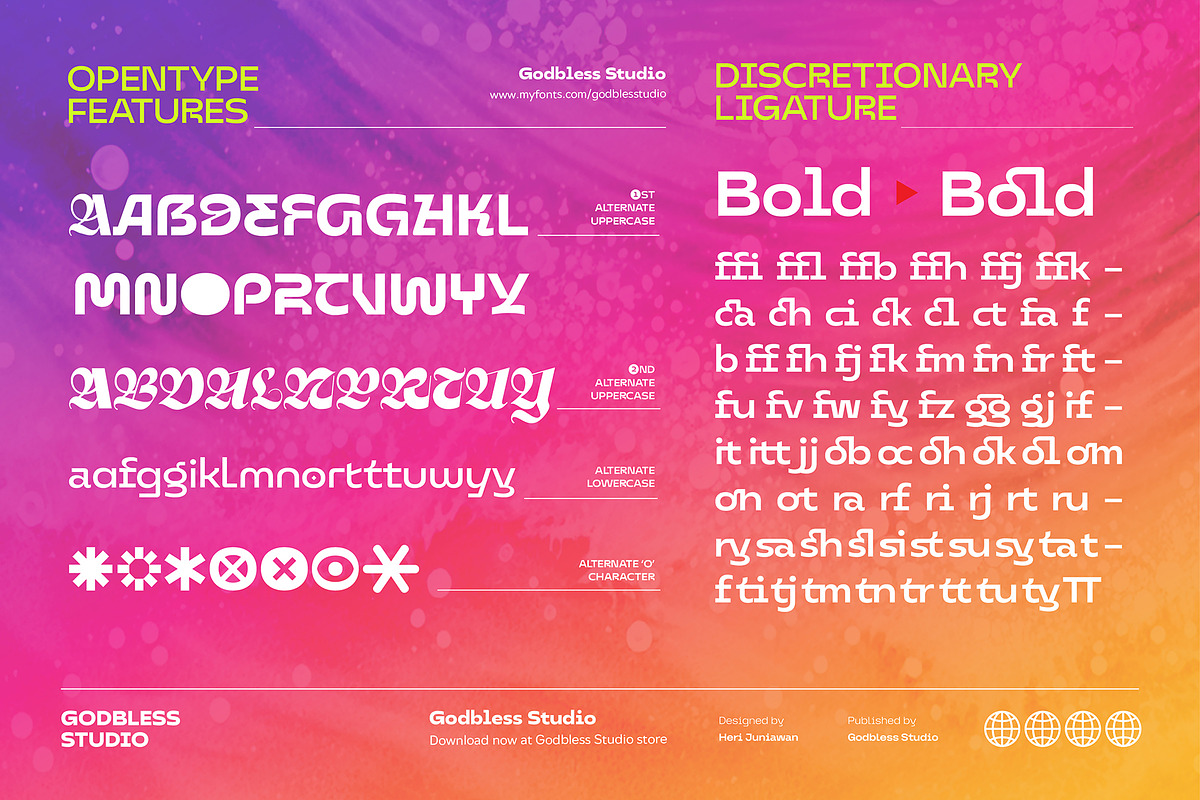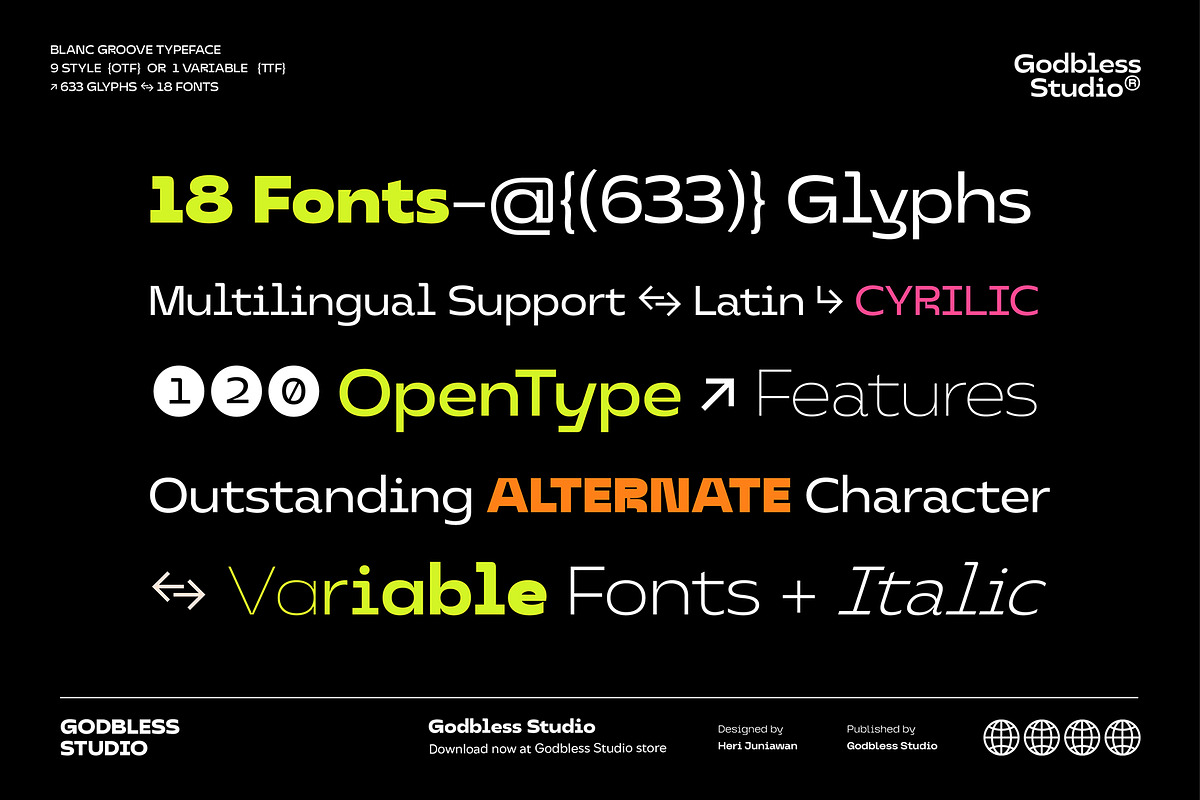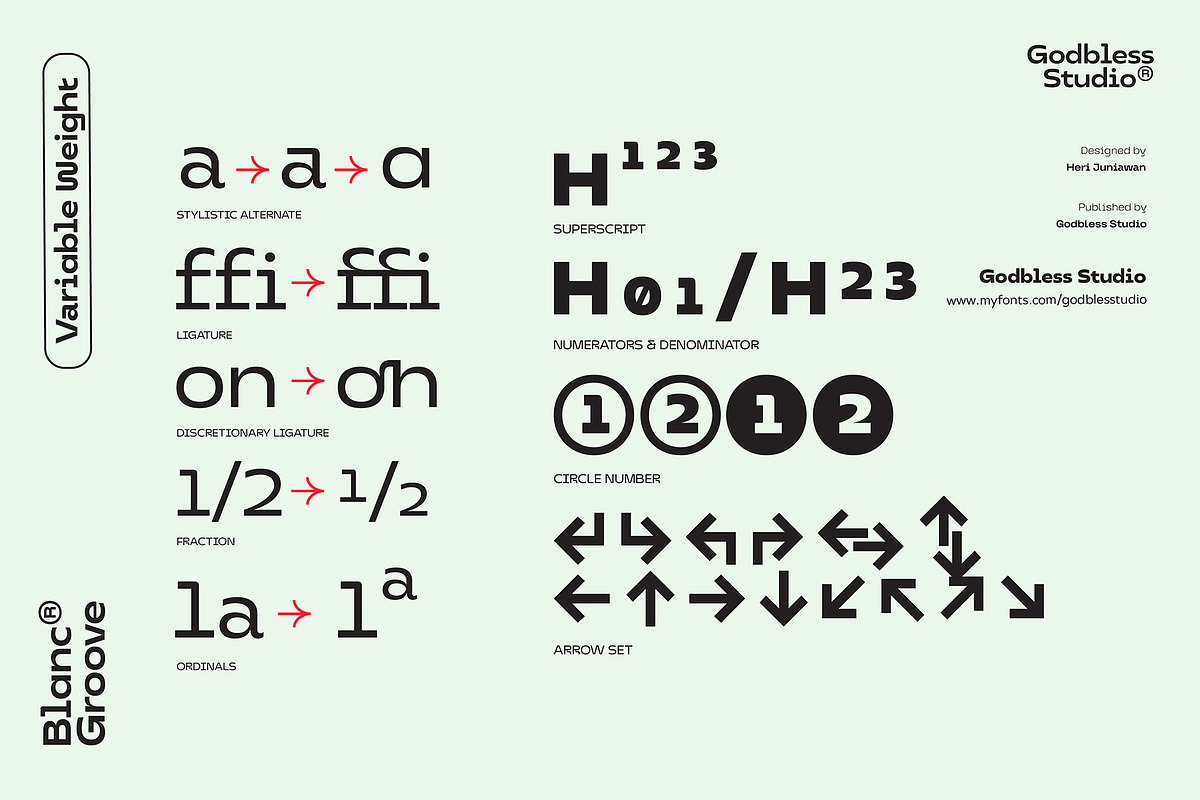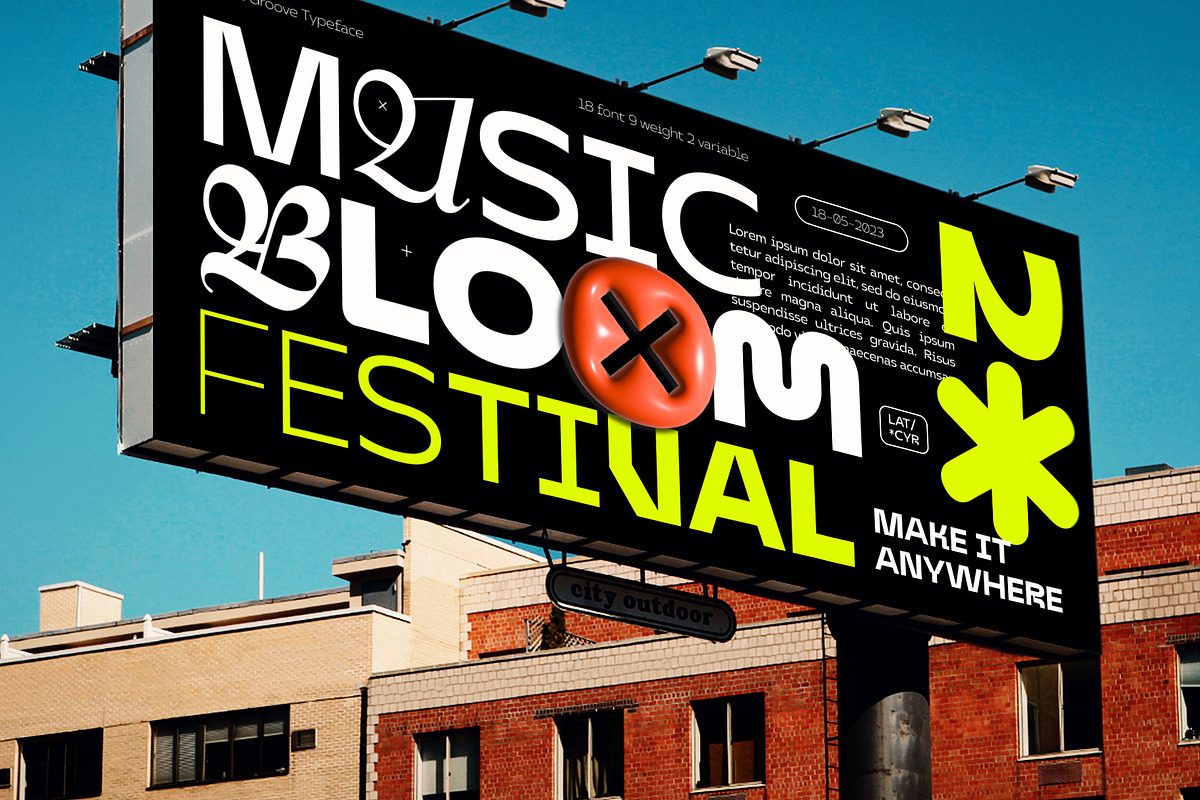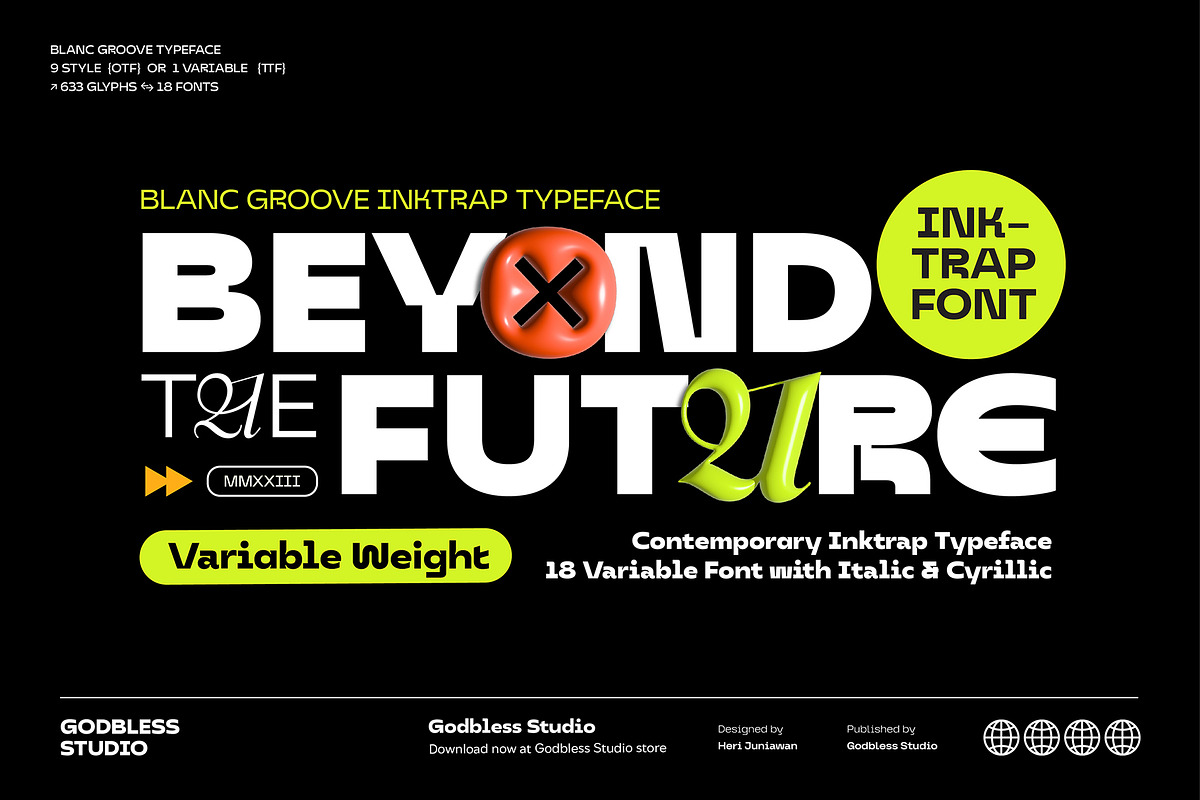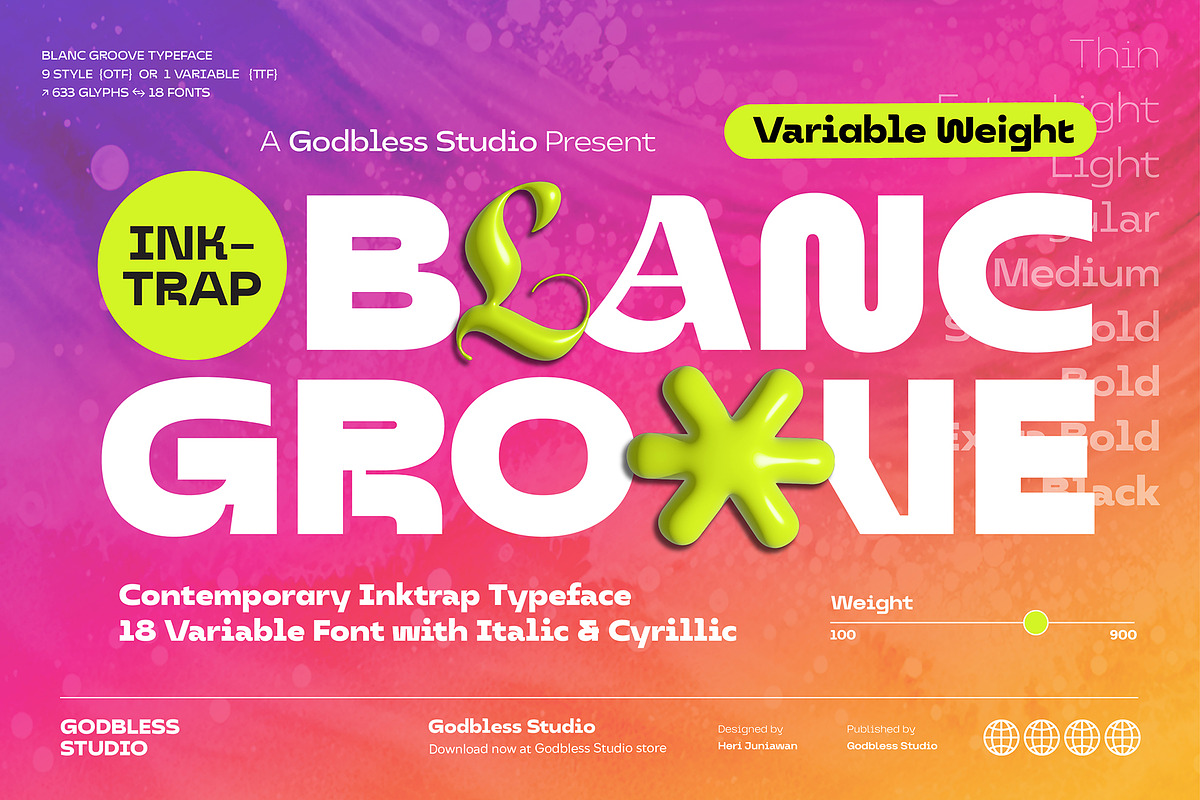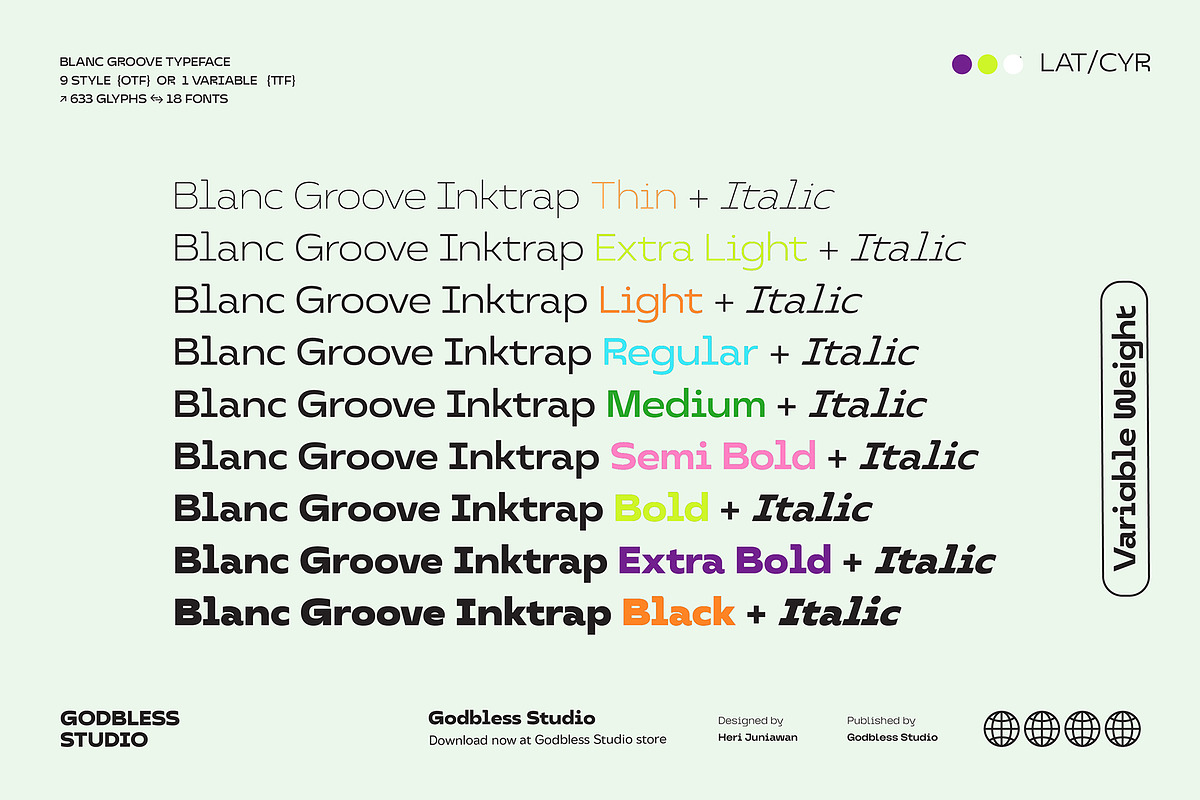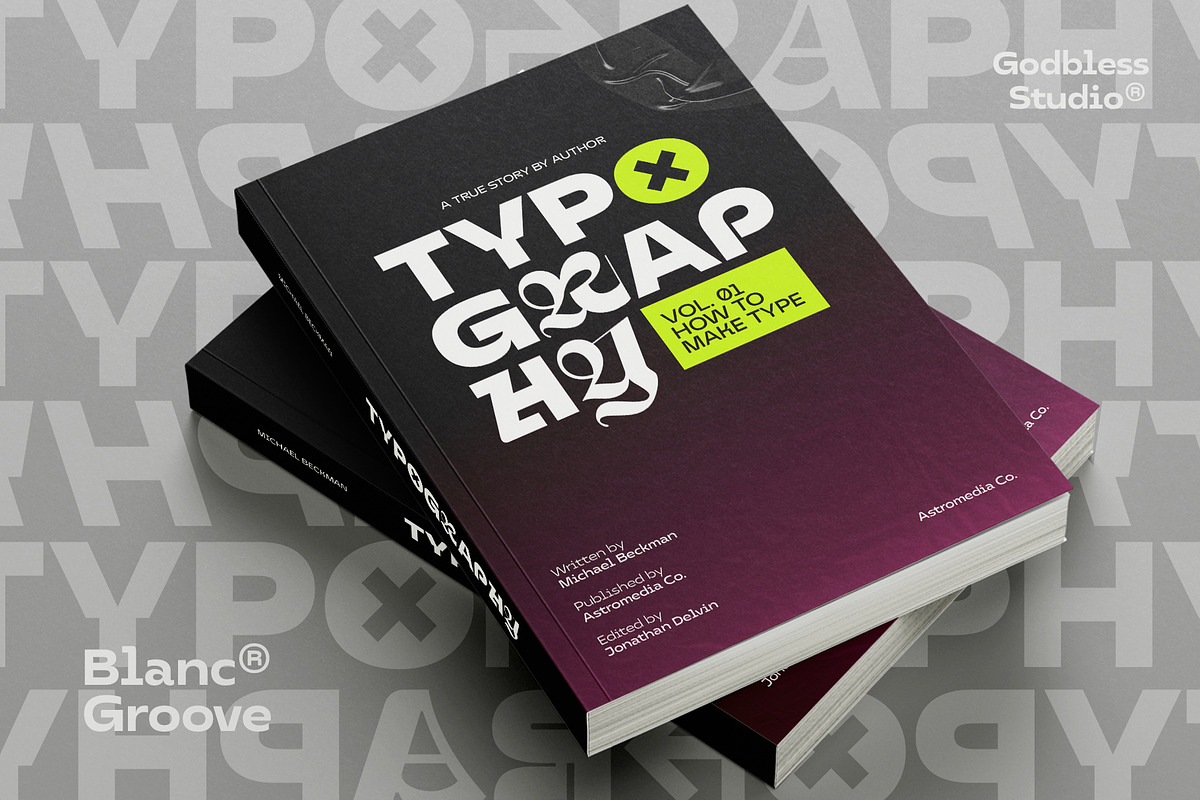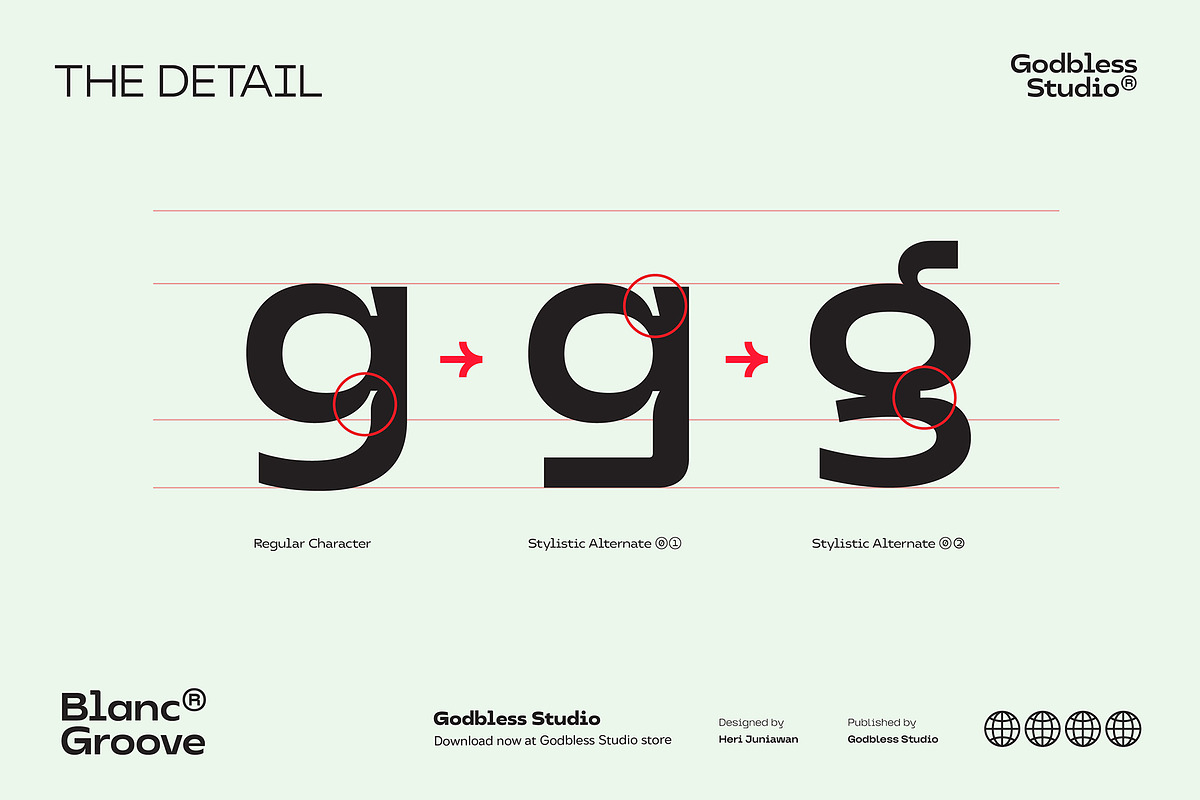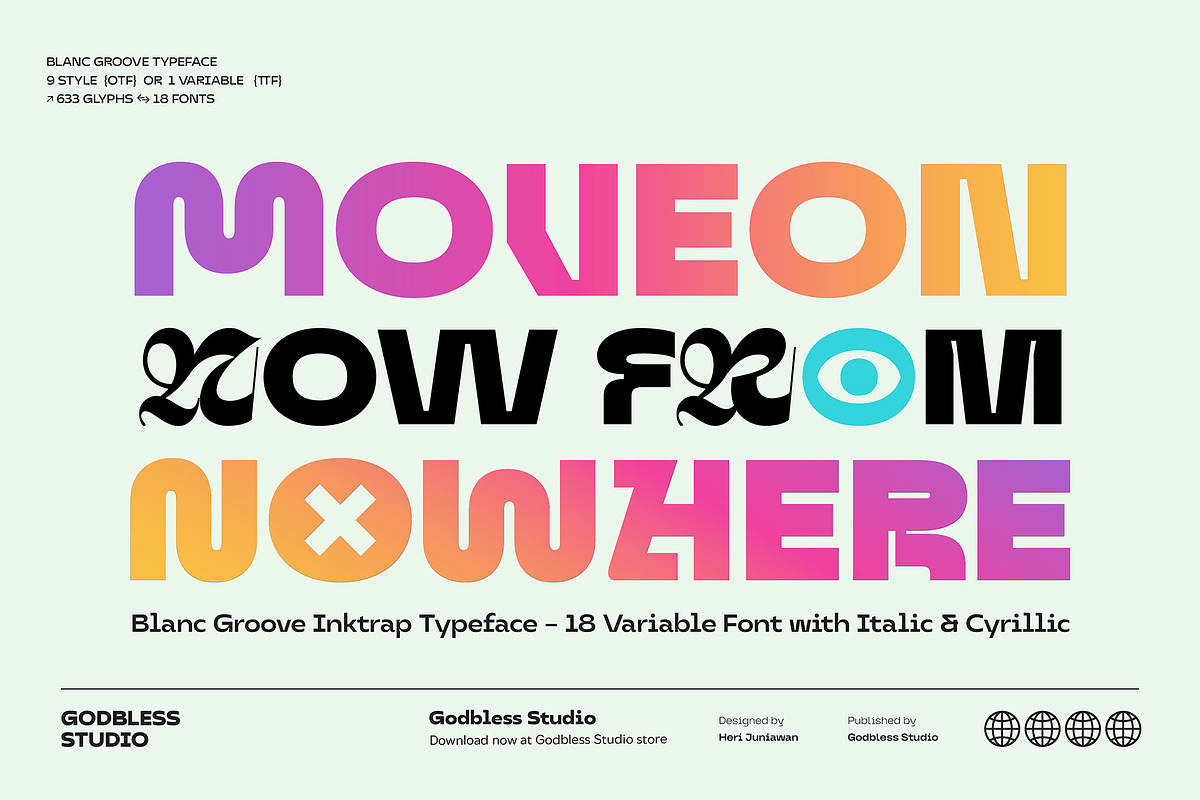
Blanc Groove Inktrap
BLANC GROOVE INKTRAP, a font with a futuristic and experimental concept created with a strong and charismatic character. following the current trend design style.
BLANC GROOVE INKTRAP is made experimentally following a futuristic style recipe with alternate characters made with outstanding INKTRAP and display that makes this font more stylish and varied.
BLANC GROOVE INKTRAP is a variable font that has 18 Font, 9 weights with 2 Variable from thin to black & Italic. also includes alternates that are more varied with variables.
BLANC GROOVE INKTRAP is a versatile font system, designed primarily for display uses with a need of visual impact.
Variable :
Thin & Italic Light & Italic ExtraLight & Italic Regular & Italic Medium & Italic SemiBold & Italic ExtraBold & Italic Black & Italic Feature :
Alternate Character Ligature Discretionary Ligature Multilingual Support Numeral & Punctuation Symbol etc